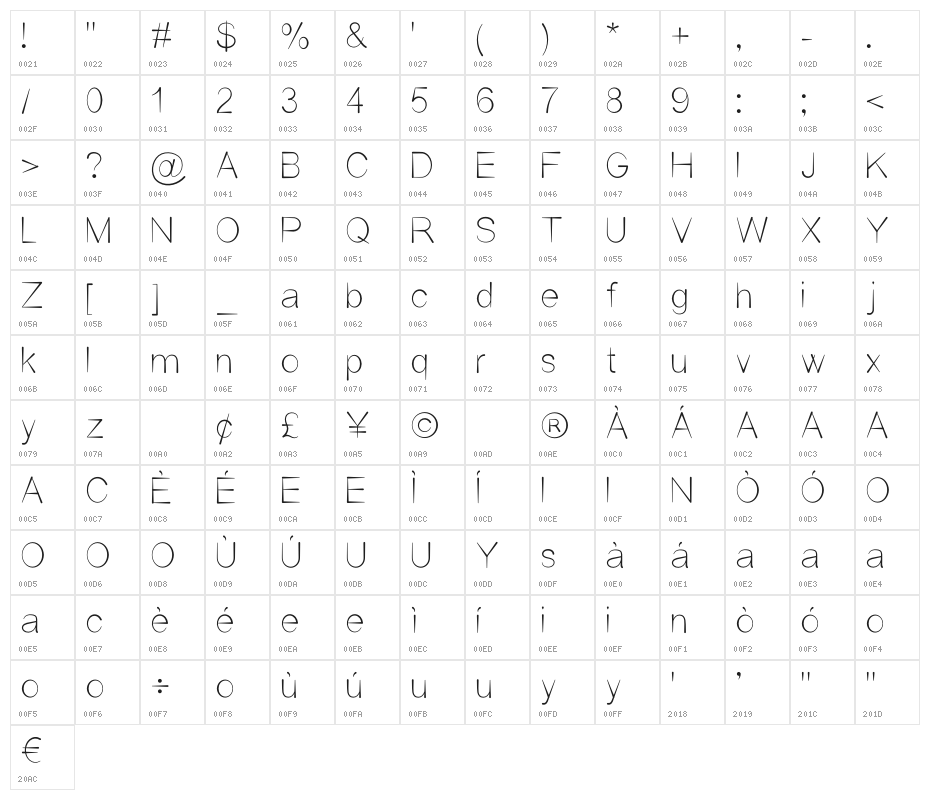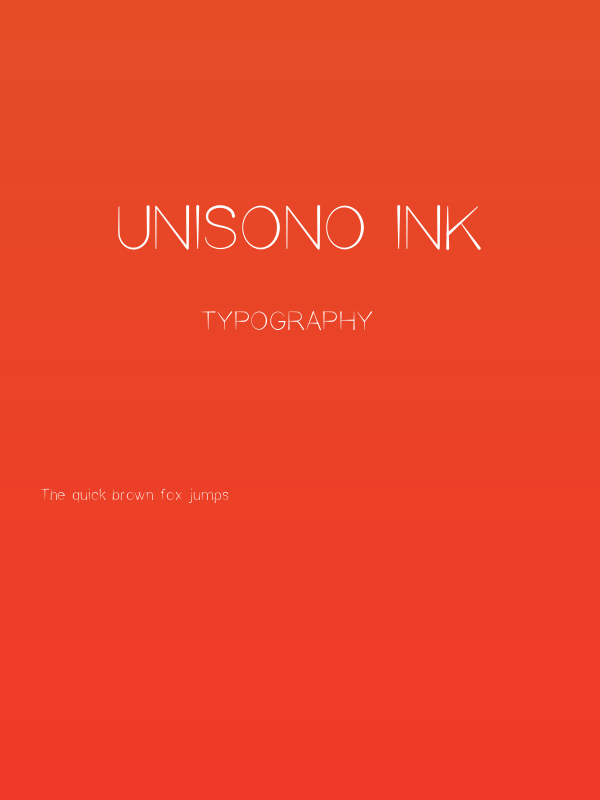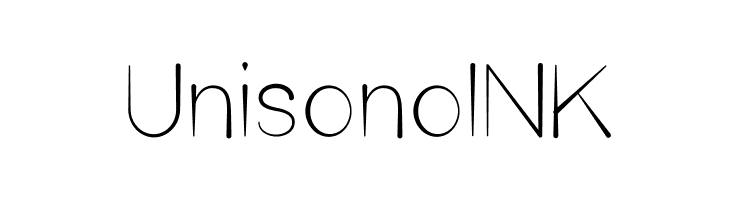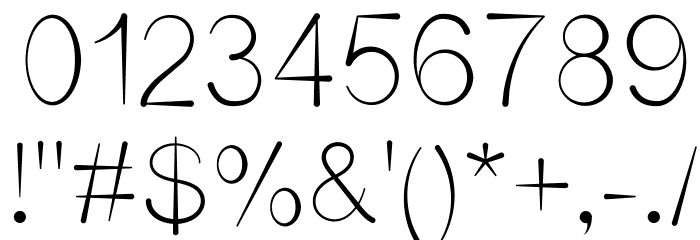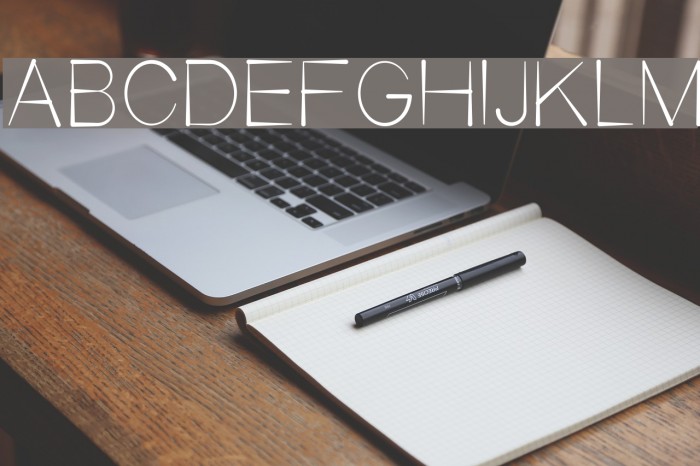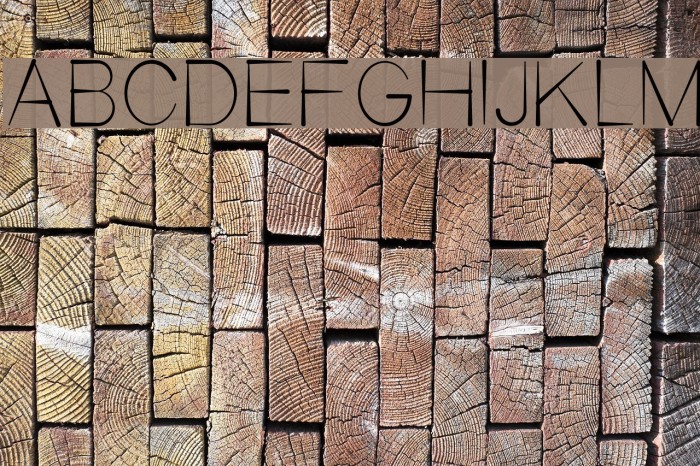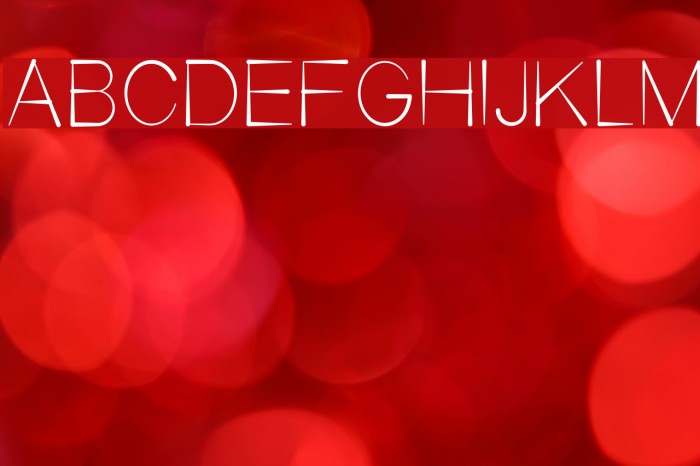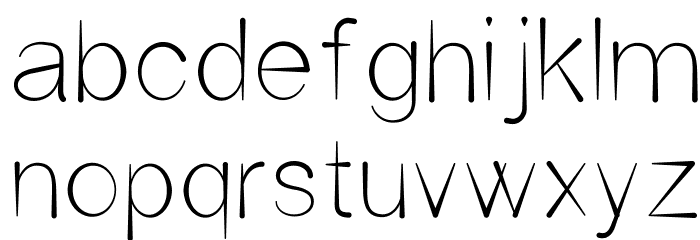
Unisono INK Font
Unisono INK Description
This font features a clean and modern design with a touch of elegance. The characters are crafted with a thin, consistent stroke that gives it a sleek and sophisticated appearance. The uppercase letters are slightly taller and more elongated, while the lowercase letters maintain a balanced and harmonious look. The numerals are clear and easy to read, making them suitable for various applications. Special characters are well-integrated, maintaining the overall aesthetic of the font. The design is versatile, making it suitable for both digital and print media.
| Proposed Projects | Ideal for branding, editorial design, websites, and minimalist graphic design projects. |